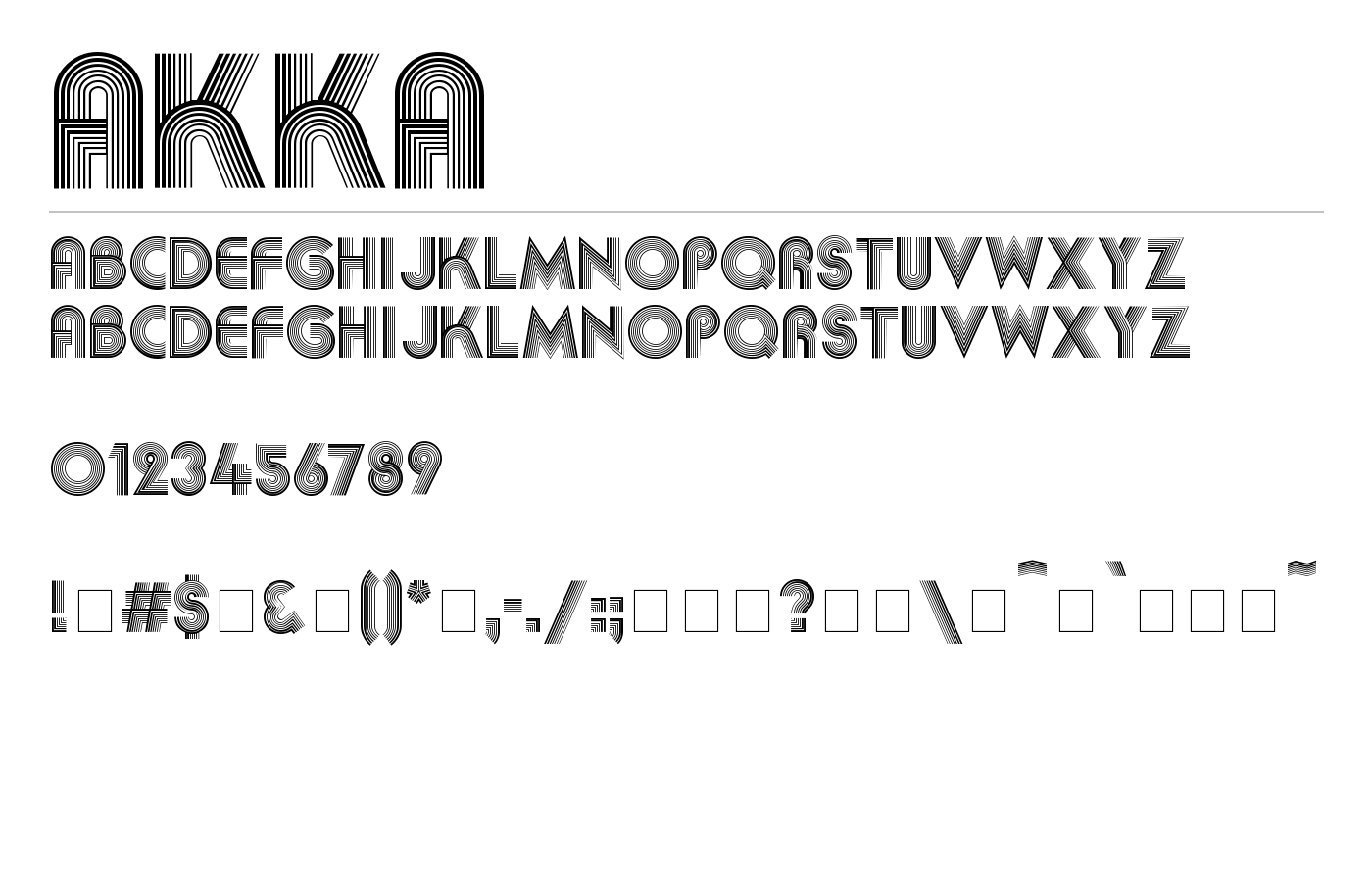
Akka Font is a bold and modern display typeface characterized by its geometric, multi-line structure that creates a striking visual rhythm. Its tall, condensed letterforms with consistent stroke spacing give it a unique, futuristic vibe ideal for eye-catching headlines, logos, and packaging that seek a dynamic, contemporary look. This font works best where strong visual impact and decorative flair are desired, making it perfect for fashion branding, poster designs, and editorial use.
Akka Font